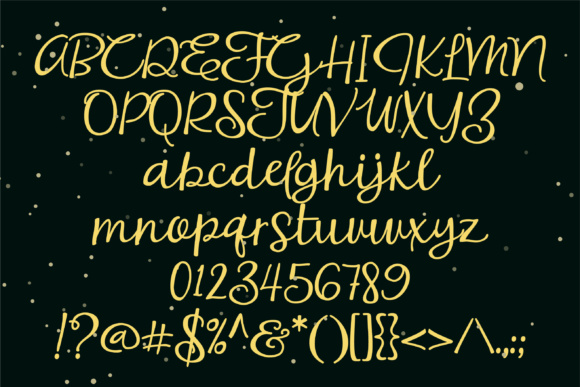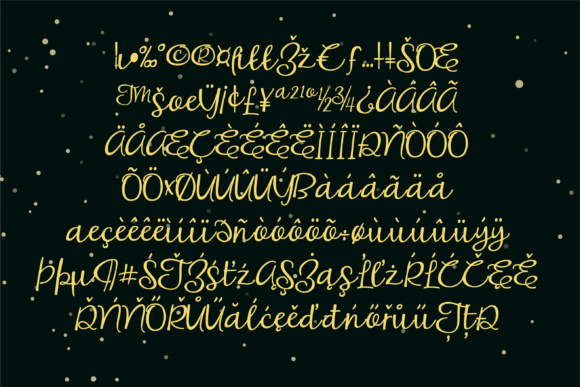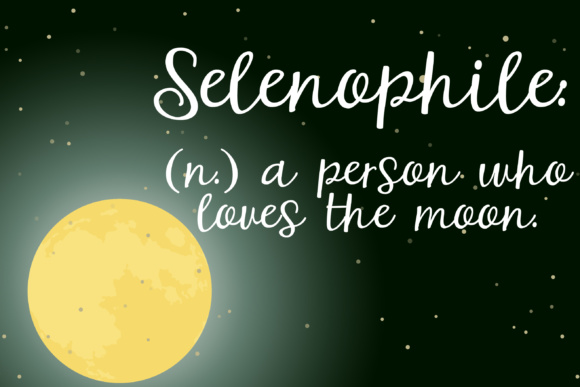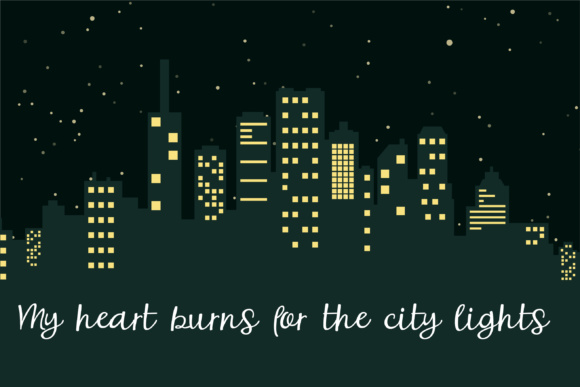
HomeScript FontsSuperlunacy Font Script Fonts Superlunacy Font FacebookXPinterestWhatsApp Superlunacy Font Poster 2 Superlunacy Font Poster 3 Superlunacy Font Poster 4 Superlunacy Font Poster 5 About Superlunacy Font This pretty hand-written script has a casual feel to it. DOWNLOAD ON CREATIVE FABRICAThis font is sold and delivered by Creative Fabrica. Font Canyon may earn a commission if you buy through this link. People also explored Mastura Font Soneytta Font Father Santa Font Victoria Font Beatney Font Misterya Font Gilberto Font Melita Script Font Jellsetter Font 290 0 TagsSuperlunacy Font Previous articleBounce Print FontNext articleThreadcount Font LEAVE A REPLY Cancel reply Comment: Please enter your comment! Name:* Please enter your name here Email:* You have entered an incorrect email address! Please enter your email address here Website: Save my name, email, and website in this browser for the next time I comment. Personal Use Free Mariyam Personal Use Free Read more about this font Happy Rabbit Personal Use Free Read more about this font Foo Personal Use Free Read more about this font Child Witch Personal Use Free Read more about this font BLOG Fonts That Capture the Spirit of New York City New York City is more than just a place—it’s an experience, a rhythm, a visual language... Where to Buy American Fonts Online in 2024 How to Install and Use Fonts on Windows, macOS, and Web Projects To increase your work productivity, choose the most readable fonts.